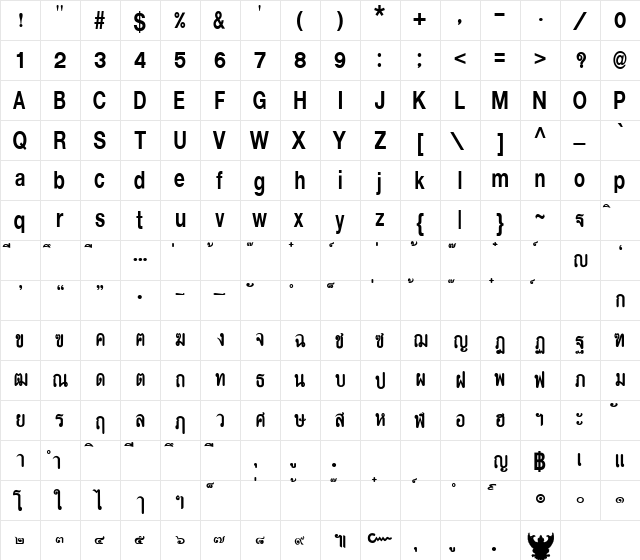
Sarun's ThangLuang Regular
Design Context for Sarun's ThangLuang Typeface
Sarun's ThangLuang offers clean, dependable letterforms without strong stylistic allegiance, making it a practical choice for designers who need flexibility.